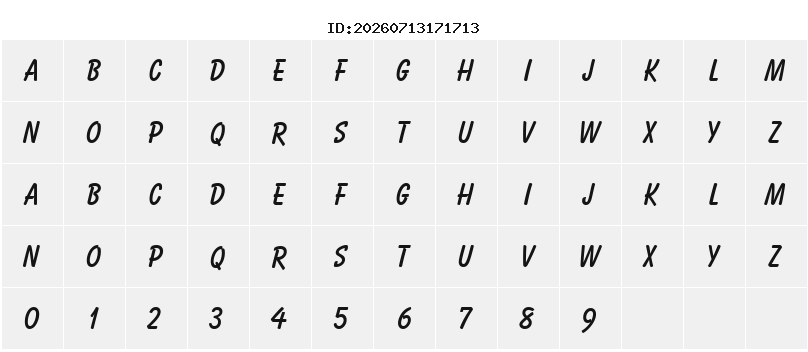
Balloon Bd BT Preview
• Font Name: Balloon Bd BT
• Font ID: Balloon Bold, Freehand 041
• Full Font Name: Balloon Bold BT
About Balloon Bd BT.ttf
Balloon Bd BT.ttf is a modern, elegant sans-serif font designed for ultimate readability and visual harmony. Perfect for branding, headlines, web design, and print materials.